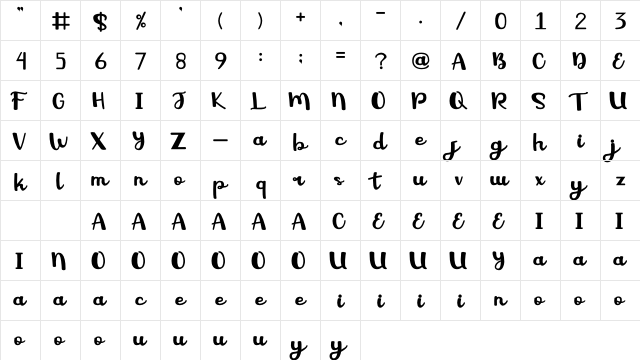
Hello World Regular
Design Context for Hello World Typeface
Hello World is a composed and adaptable typeface that performs quietly and consistently across a wide range of design contexts.
Pro Tip: Pair Hello World with a font of contrasting weight or personality to build a more expressive typographic hierarchy.